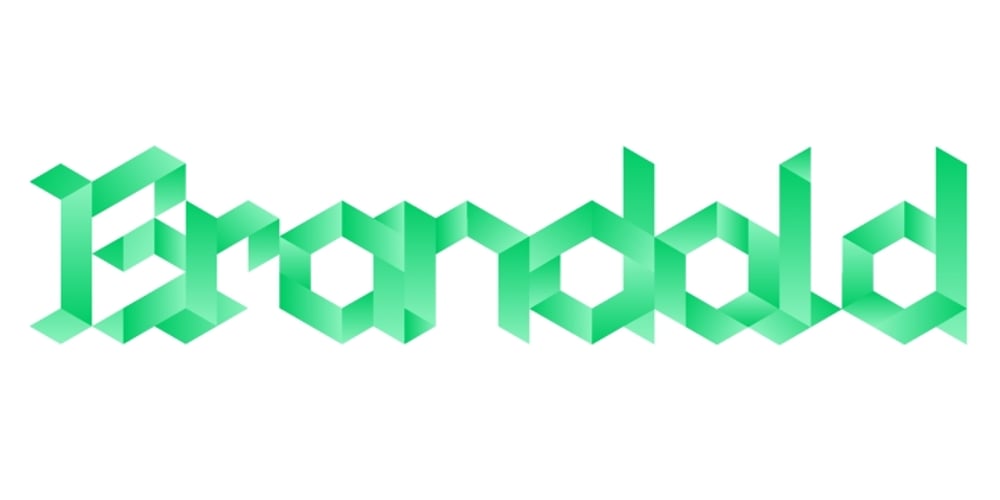
Brandold Font Family was designed by Isaac Art Grant and published by Krisp Designs. Brandold contains 1 styles and family package options. Brandold is based on the repetition of one shape, the equilateral triangle. Using these triangles as pixels I built a medieval-like font that looks new, but follows an old aesthetic. I chose to make this font because I hadn’t seen anything similar.